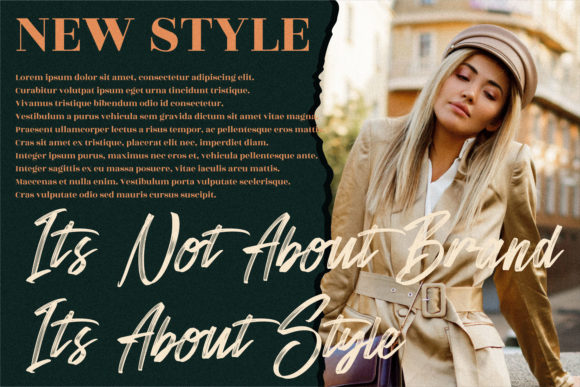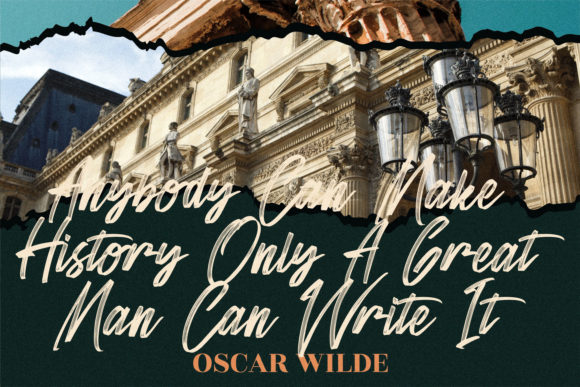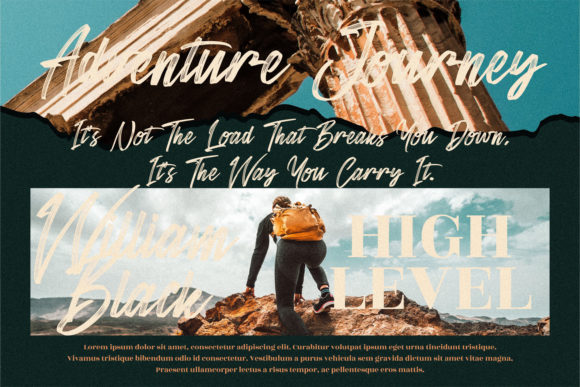
Introduction to Sandershon Font
Have you ever stared at a blank canvas, feeling the weight of a creative project hanging in the balance? You know the feeling – the pressure to craft something unique, something that speaks directly to the heart of your audience. As designers, we’ve all been there. That’s why discovering a high-quality font like the Sandershon Font can be a game-changer.
With its modern and bold brushed script design, the Sandershon Font is the perfect addition to any design project. Whether you’re creating a wedding invitation, a thank you card, or a logo, this font brings a touch of personality and sophistication that’s hard to resist. Plus, with PUA encoding, you can access all the glyphs and swashes with ease, giving you the flexibility to create truly one-of-a-kind designs.
Key Features of Sandershon Font
- High-quality design resource with a unique and creative style, perfect for various projects.
- Comes with a transparent background, allowing for easy integration with different backgrounds and designs.
- Unique characteristics: The Sandershon Font features a distinctive blend of modern and vintage elements, making it an excellent choice for creative projects that require a touch of sophistication and elegance.
Honest Review: Sandershon Font
I recently had the chance to work with the Sandershon Font on a creative project, and I was impressed by its high quality.
The font is available for free download, making it a great design resource for those on a budget. One of the standout features of the Sandershon Font is its versatility – it works well for a wide range of designs, from simple text overlays to complex compositions.
Here are some things that work well with the Sandershon Font:
- ✨ Clean and modern aesthetic
- ✨ Wide range of font weights and styles
- ✨ Supports transparent background, making it easy to layer with other design elements
- ⚠️ Limited character set, which may not be suitable for languages that require a wide range of characters
- ⚠️ Not all font weights and styles are available in every format (e.g. some may only be available as a .ttf file)
Overall, I’m impressed with the Sandershon Font. While it may have some limitations, its high quality and versatility make it a valuable design resource. I’d definitely recommend it to anyone looking for a free font to use on their next creative project.
For optimal results, use the Sandershon Font in conjunction with other design elements that complement its style. Experiment with different font sizes, colors, and arrangements to create a visually appealing design. This font is highly versatile and can be used in a variety of creative projects, from logos to infographics.
The Sandershon Font is commonly used in design projects that require a clean, modern aesthetic. It is particularly well-suited for logos, business cards, and other materials that require a professional, high-quality design resource. With its transparent background, this font is also ideal for designs that require a seamless integration with other design elements.